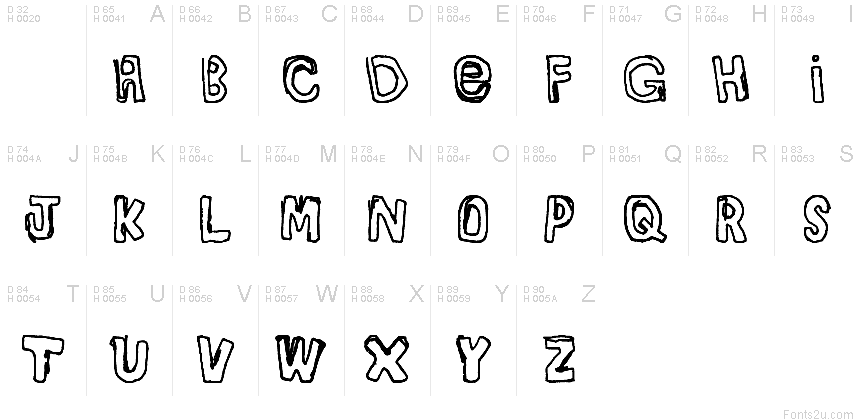
BULLY BOYS
BULLY BOYS font is a free outlined display typeface with a loud, comic-book bounce—thick, blobby letterforms traced in a wobbly double line that feels like marker ink on a notebook doodle. The roomy counters and uneven rhythm keep it playful, not polished, so your words land with a grin.
Using BULLY BOYS works beautifully for kids’ posters, sticker packs, arcade flyers, party invites, YouTube thumbnails, stream overlays, school event banners, and zany merch graphics. Keep it large so the outline stays crisp, and pair it with a plain sans (like a clean grotesk) for any supporting text—this free font likes to be the headline.